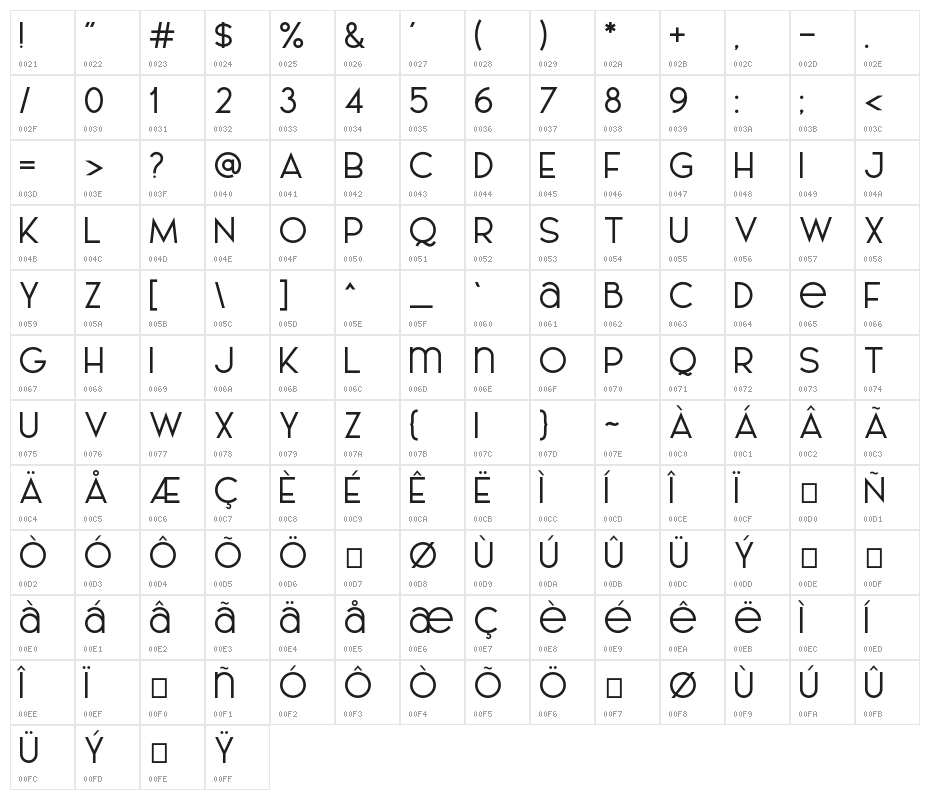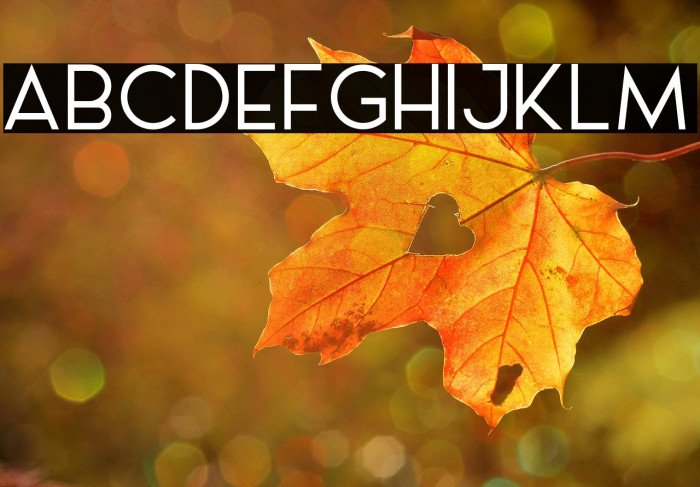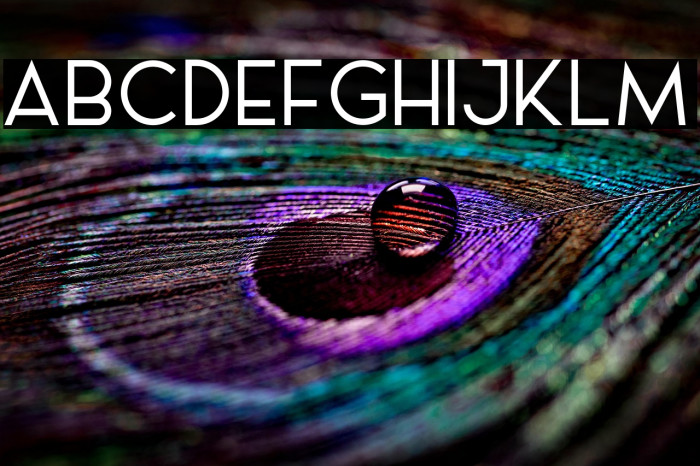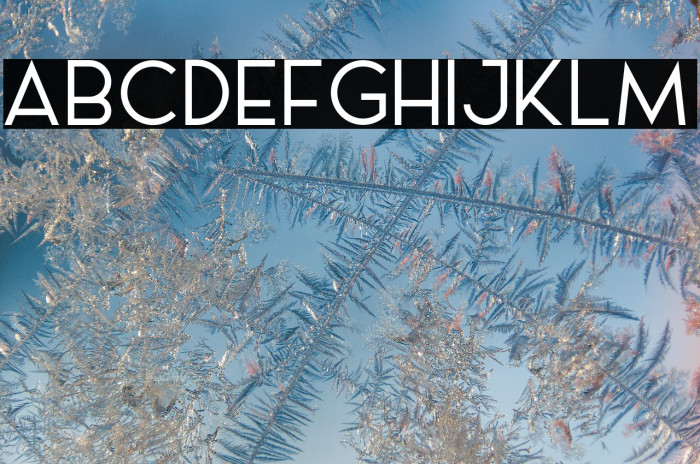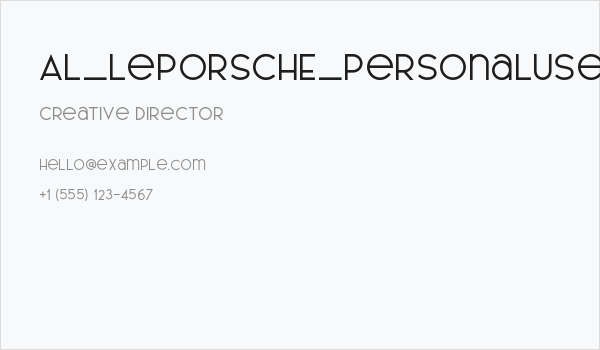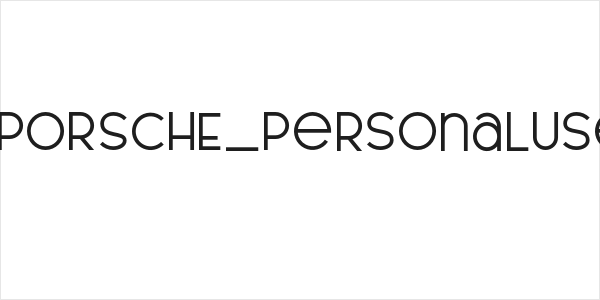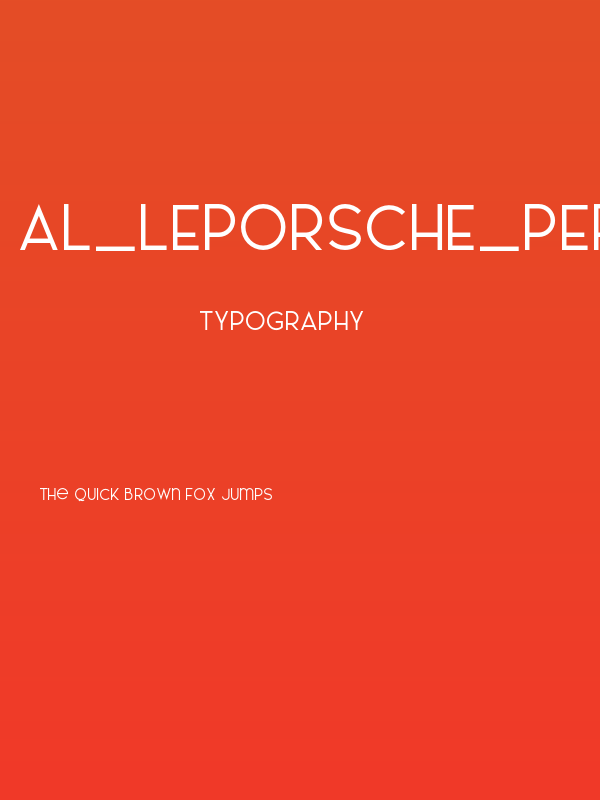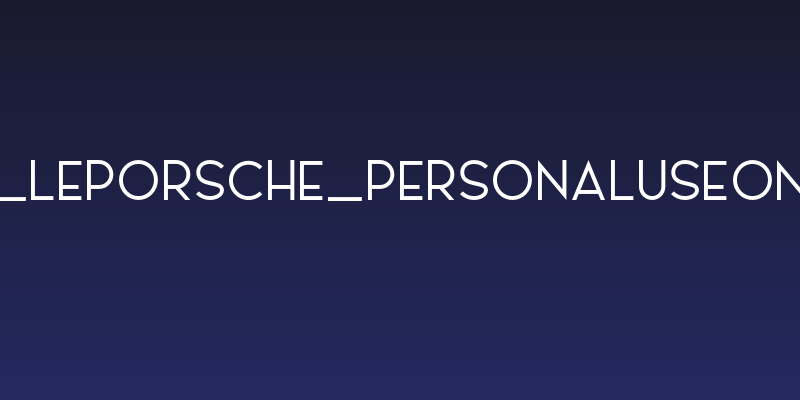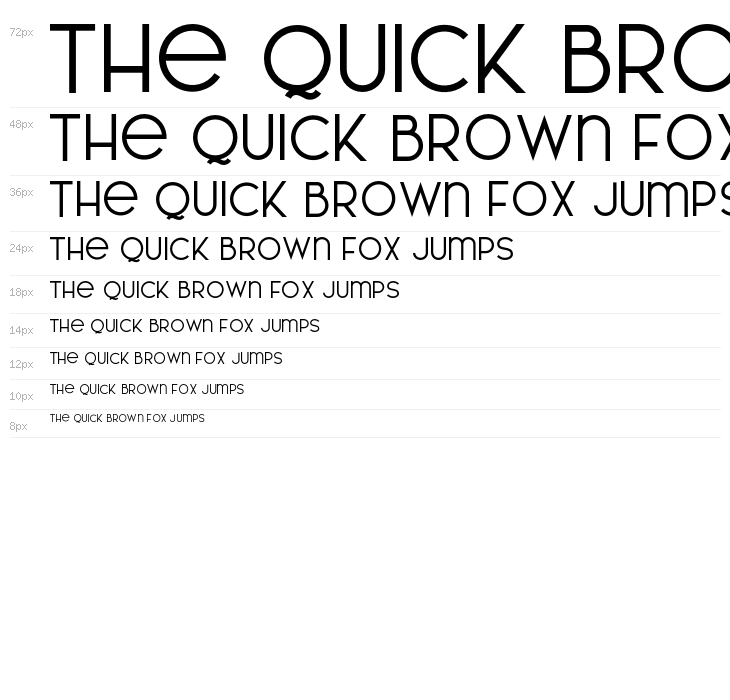
AL_LePORSCHE_PersonalUseOnly Font
AL_LePORSCHE_PersonalUseOnly Description
This font features a clean and modern design with geometric influences, characterized by its uniform stroke width and minimalistic style. The uppercase and lowercase letters are well-balanced, offering a harmonious appearance. The numerals are straightforward and align well with the overall aesthetic. Special characters are included, maintaining the same sleek and contemporary look. The font's simplicity and clarity make it versatile for various design applications, ensuring readability while adding a touch of elegance.
| Proposed Projects | Ideal for branding, advertising, web design, and editorial layouts where a modern and clean look is desired. |